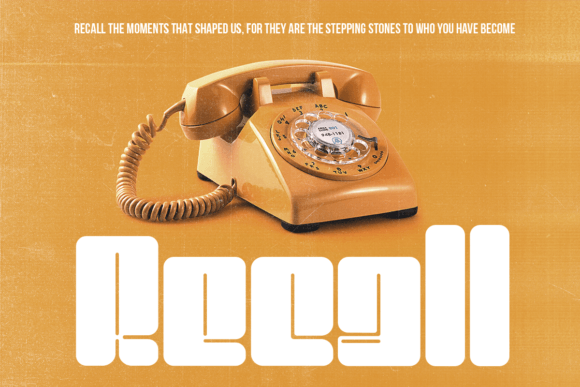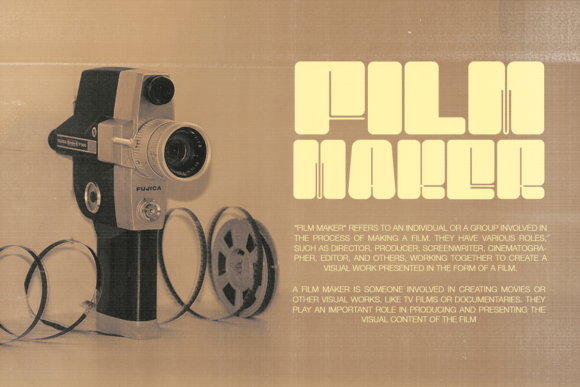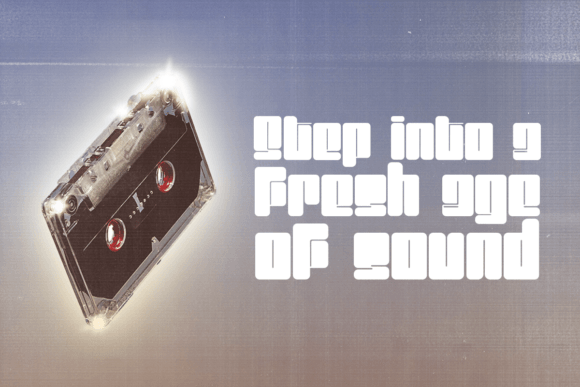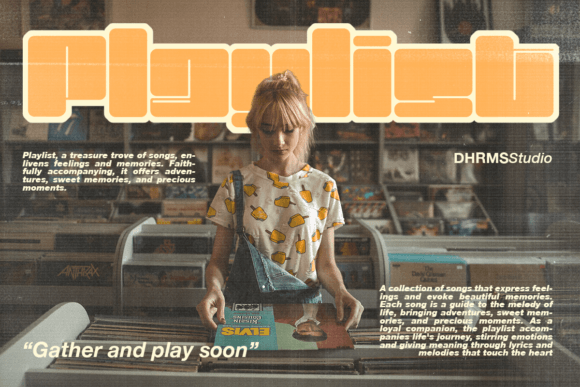
Kickbox Font
Kickbox is a bold, all caps sans serif font featuring the perfect amount of trendiness. Whether you’re using it for crafting, digital designing, presentations or greeting cards making, it’s perfect!